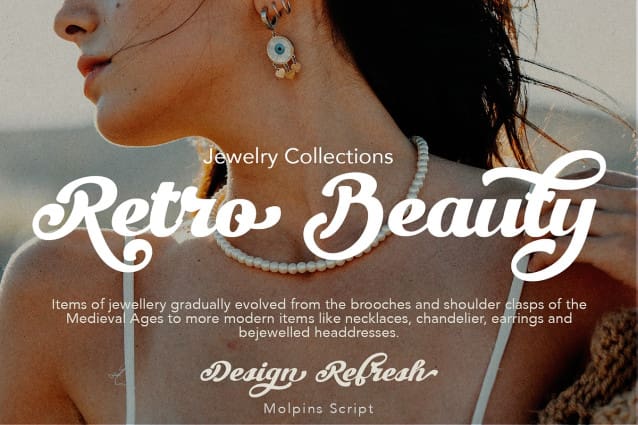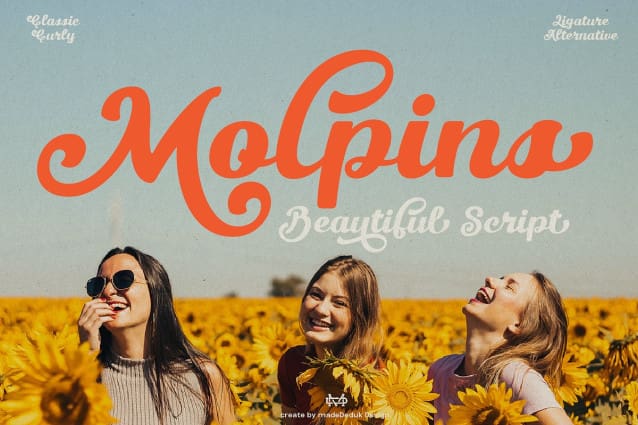
Molpins Script Font
Molpins Script Font is a beautiful script font. Comes with curly style with much alternative and ligature. This font perfect for poster design, book covers, merchandise, fashion brands, advertising, magazines, album covers, wedding invitation and more.’